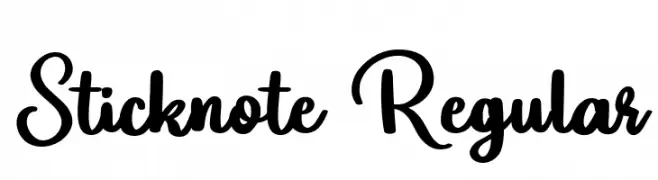
An elegant script font with intricate swashes and a flowing, cursive style.
A bold, brush-style handwritten font with dynamic strokes.
A bold, modern script font with dynamic, flowing strokes.
A playful and flowing script font with elegant curves and continuous strokes.
A graceful calligraphic script with elaborate swashes and flowing lines.
A modern, handwritten font with a casual and flowing style.
A playful, bold font with rounded, flowing characters and a whimsical touch.
A playful and casual script font with smooth, flowing lines and rounded edges.
A playful, bold script font with a handwritten style.